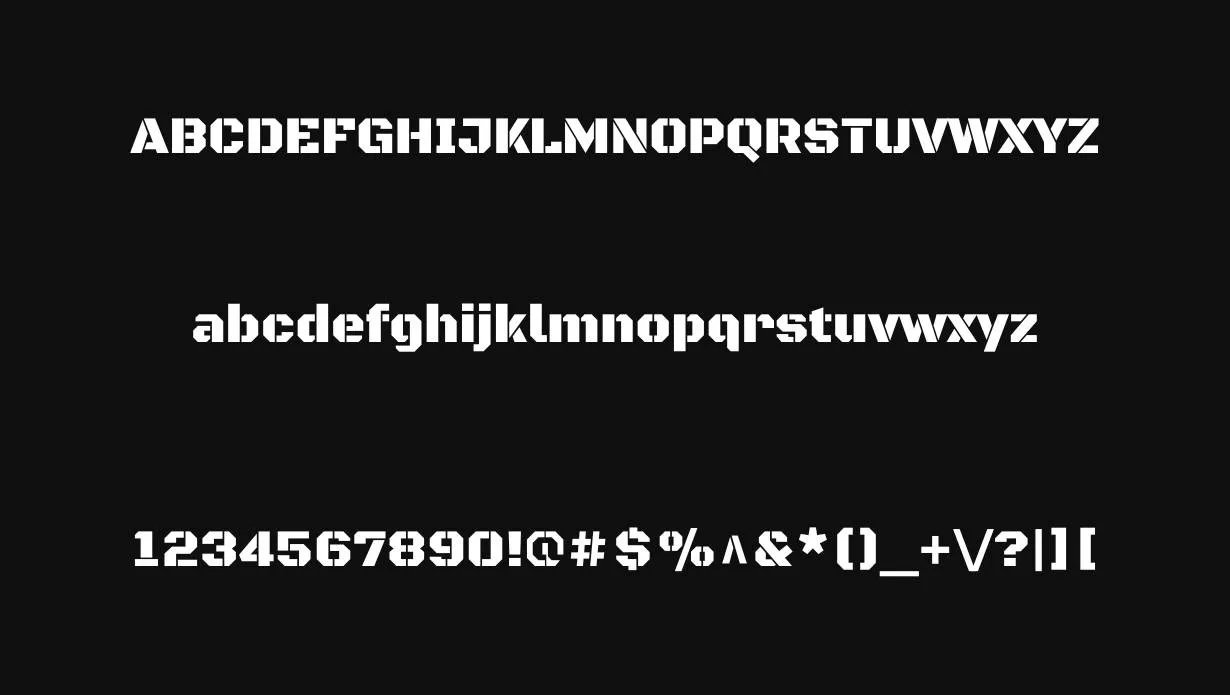
Black Ops Font makes a powerful impact in the font world, delivering a bold statement that will elevate your words. Dive in to discover why this font stands out among the rest!
This font is perfect for projects that need power and intensity. Whether it’s a poster, logo, or headline, Black Ops Font ensures that your words grab attention and leave a lasting impression.
| Name | Black Ops Font |
| Designer | Typeco |